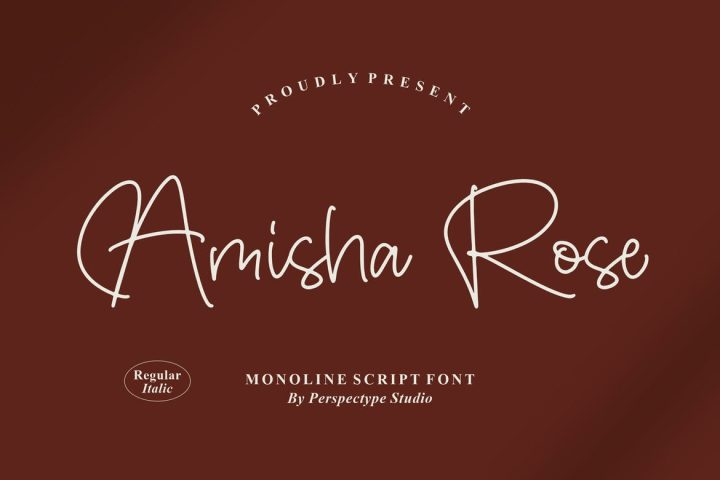
Amisha Rose Monoline Script Font
Hi ladies & gentlemen, this is one of our fonts suitable to complement your digital and printed creative products. This font is perfect for posters, social media posts, branding, personal projects, etc.